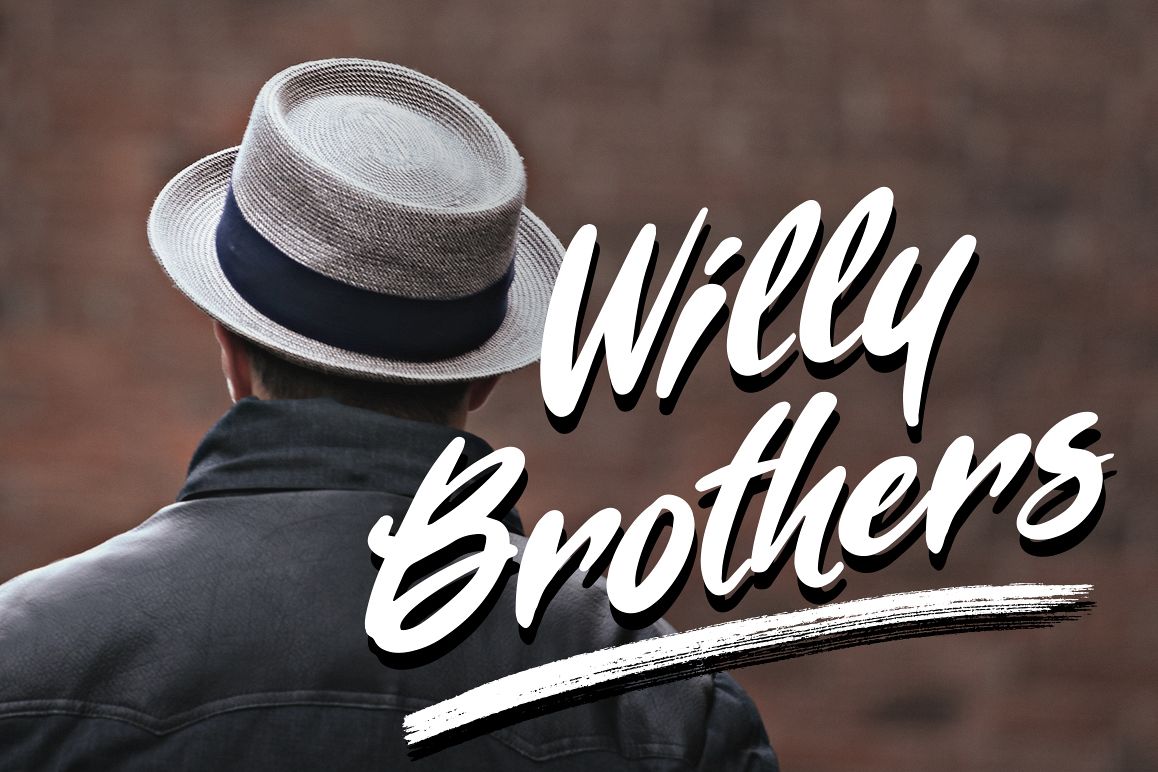
Willy Brothers
Willy Brothers is a brush stroke handwriting script font. Awesome for poster title, logotype, brand product, or any graphic design elements.